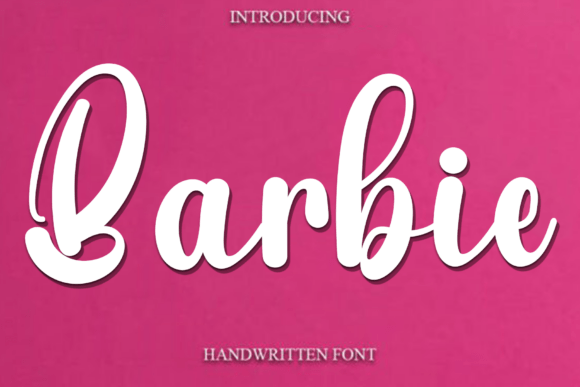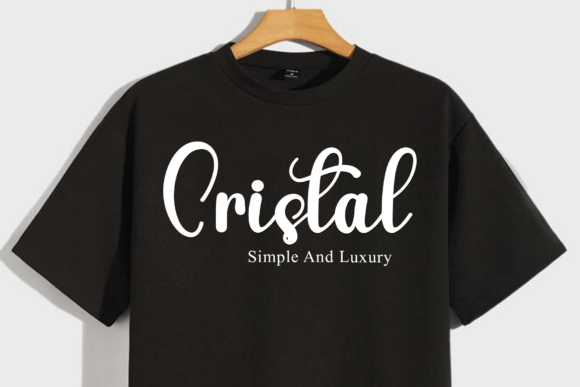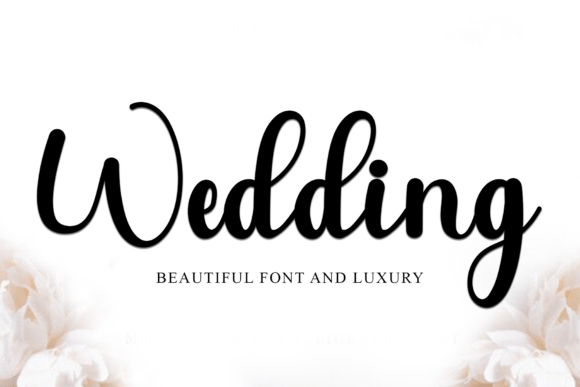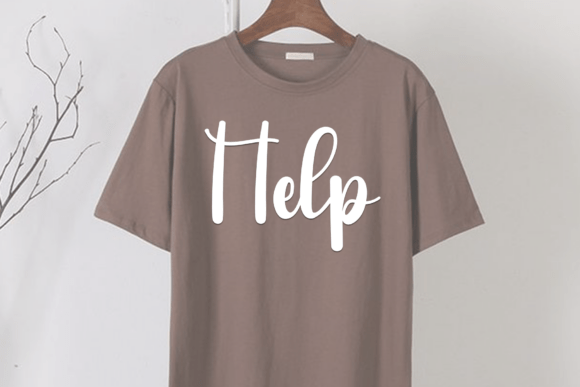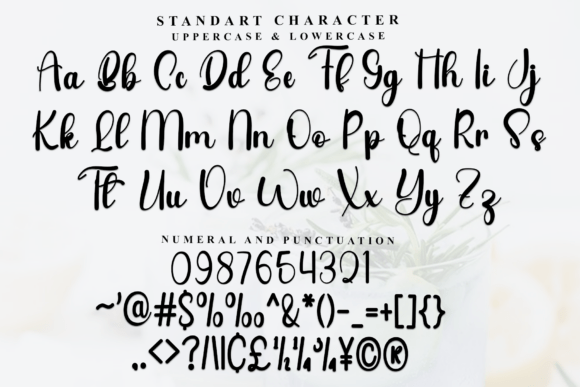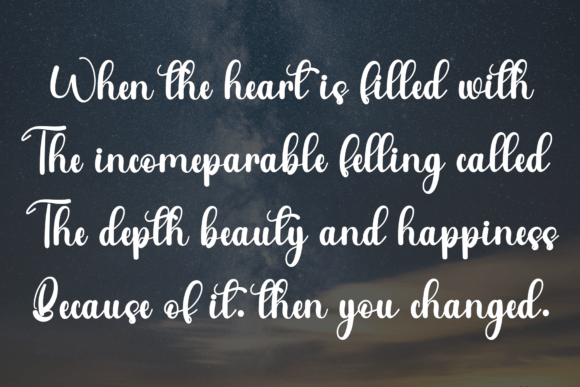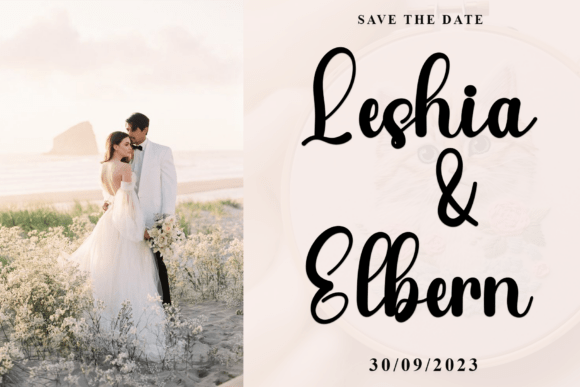
Meet Your New BFF: Barbie Font
Have you ever stared at a blank page, feeling stuck and uninspired? You know, that moment when all you want to do is create something beautiful, but your brain is a jumble of ideas and your fingers are frozen? For designers, that moment is a familiar friend – but what if we told you there’s a font that can help you break free from that creative block and unleash your inner artist?
Enter the delightful Barbie Font, a casual and creative typeface that exudes warmth and friendliness. With its round, playful strokes and charming, hand-drawn aesthetic, this font is the perfect companion for personal projects, invitations, and social media graphics. Whether you’re a seasoned designer or a hobbyist, Barbie Font is a valuable addition to your toolkit – and with its standard PUA Encoded glyphs, you can use it with ease in a variety of applications.
Key Features of Barbie Font
- Font Family: The Barbie Font is a custom font designed specifically for the Barbie brand.
- Unique Characteristics: The Barbie Font features a distinctive, cursive script with a playful and elegant feel, making it ideal for branding and packaging applications.
Barbie Font Review
Overall, I think the Barbie Font has a playful and whimsical feel to it, which could work well for certain design projects. ✨ The font’s curves and rounded edges give it a soft, feminine touch that’s reminiscent of the iconic doll.
Some of the strengths of the Barbie Font include:
- Legibility: The font is generally easy to read, even at smaller sizes.
- Variety: The font comes in several weights and styles, which can be useful for adding visual interest to a design.
- Limited expressiveness: The font’s playful, cursive feel may not be suitable for more formal or serious projects.
- Lack of boldness: The font’s curves can make it difficult to create bold, dramatic effects.
- Not ideal for body text: The font’s cursive nature may make it less effective for large blocks of text.
Overall, I think the Barbie Font is a fun and creative option for designers looking to add a touch of whimsy to their projects. However, it may not be the best choice for every design task.
Tips for Getting the Most Out of the Barbie Font
Use the Barbie Font for designs that require a playful and youthful feel. It’s perfect for children’s products, fashion brands, and lifestyle magazines.
Experiment with different font sizes and styles to create a visually appealing design.
Combine the Barbie Font with other fonts to create a unique and eye-catching design.
The Barbie Font is commonly used for:
Children’s product packaging
Fashion brand logos
Lifestyle magazine headlines
Toy advertisements
Alternatives to “Barbie Font” for Designers
Pacifico is a beautiful, elegant script font that works well for creative and artistic projects. It’s ideal for use in headings, titles, and quotes. Pacifico is a great alternative to Barbie Font as it provides a similar level of sophistication and flair, but with a more refined and polished feel.
Great Vibes is a modern, handwritten font that’s perfect for projects that need a touch of whimsy and playfulness. It’s great for use in headings, titles, and body text. Great Vibes is similar to Barbie Font in its casual, approachable feel, but with a more dynamic and expressive style.
Dancing Script is a lively, energetic script font that’s great for projects that need a sense of movement and flair. It’s ideal for use in headings, titles, and quotes. Dancing Script is similar to Barbie Font in its playful, carefree feel, but with a more dramatic and dynamic style.